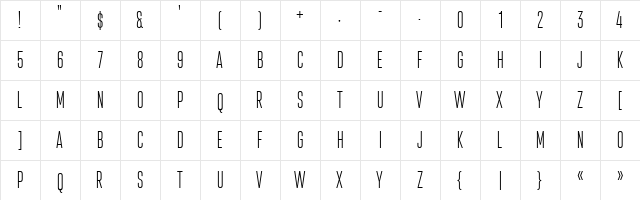
Attentica 4F UltraLight
| Foundry | Sergiy S. Tkachenko |
| Designer | Sergiy S. Tkachenko |
Design Context for Attentica 4F Typeface
Attentica 4F takes a measured approach to typography — its balanced proportions and neutral character make it a reliable workhorse for both digital and print work. Its slender proportions lend an understated elegance to any composition.